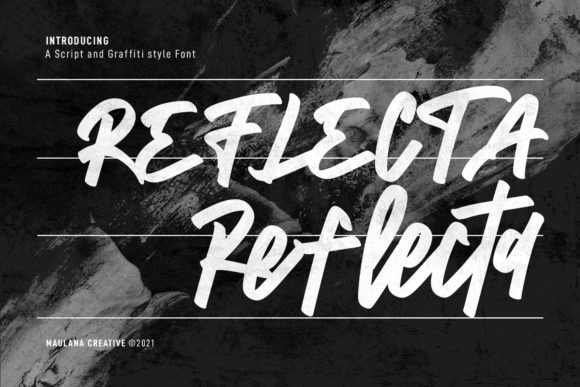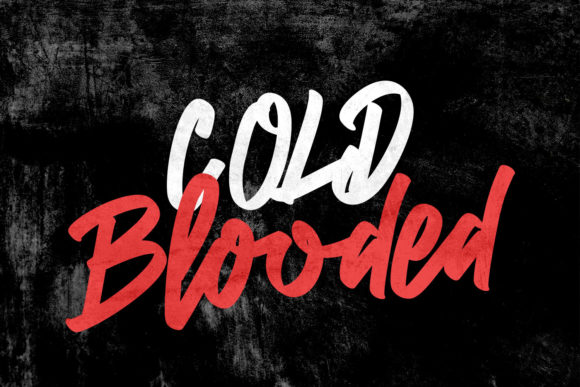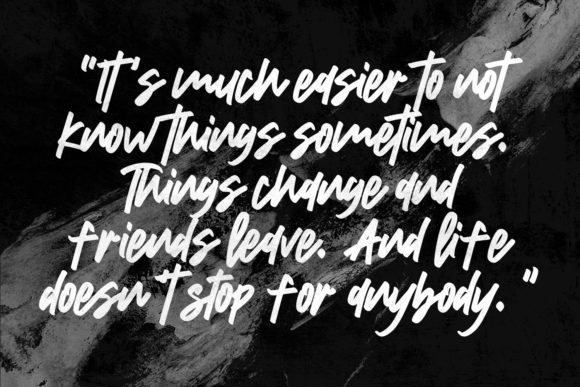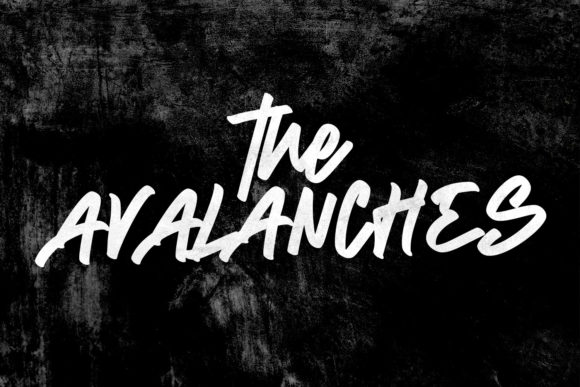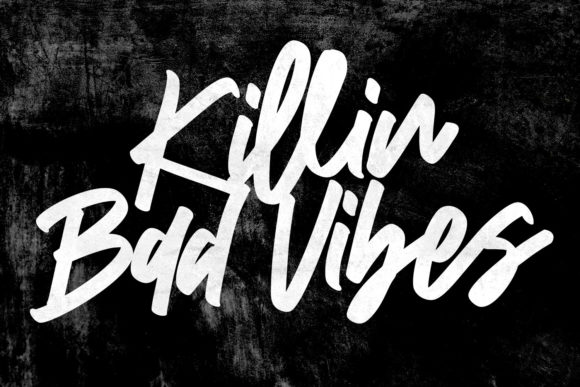
About Reflecta Font
Reflecta is a handwritten font inspired by graffiti typography, specially crafted to give you extra creativity. This font is good for logo design, social media posts, movie titles, books titles, and many more. Add it to your favorite creative projects, and make a stunning work with Reflecta font!